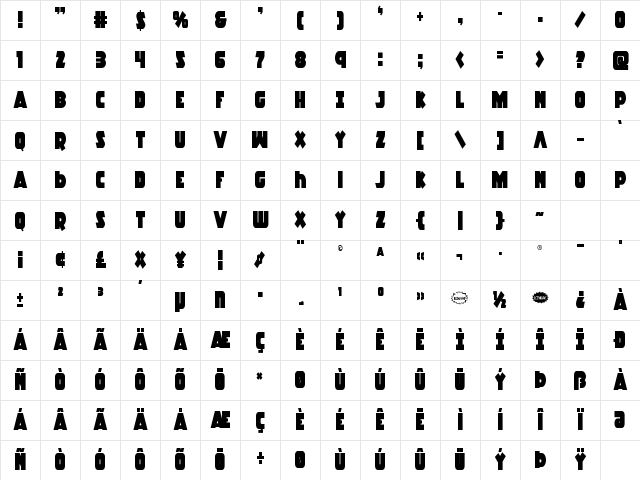
Racket Squad Condensed Free Font
Racket Squad Condensed
Style: Condensed
Design Context for Racket Squad Condensed
Racket Squad Condensed is a composed and adaptable typeface that performs quietly and consistently across a wide range of design contexts. Its narrow stance lets it pack a punch even in space-constrained designs.